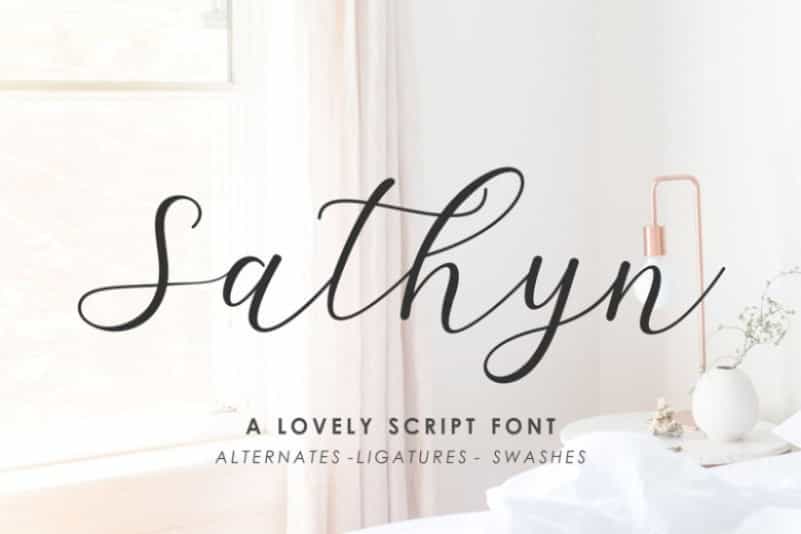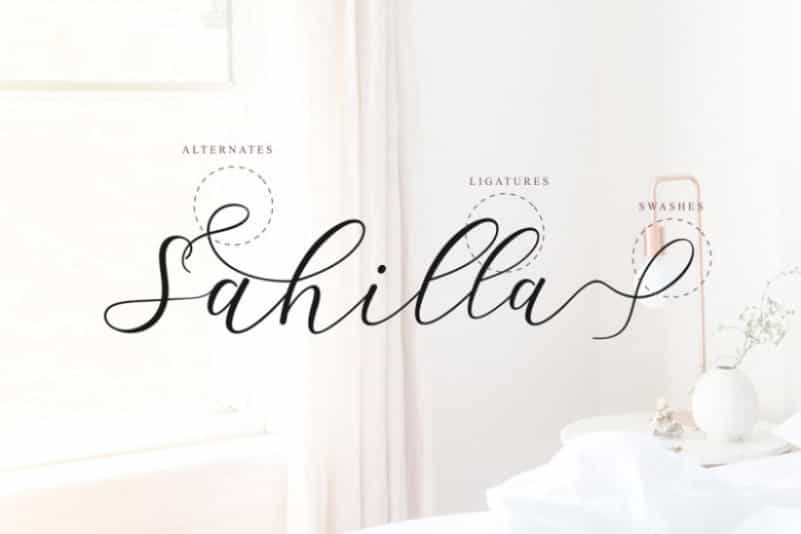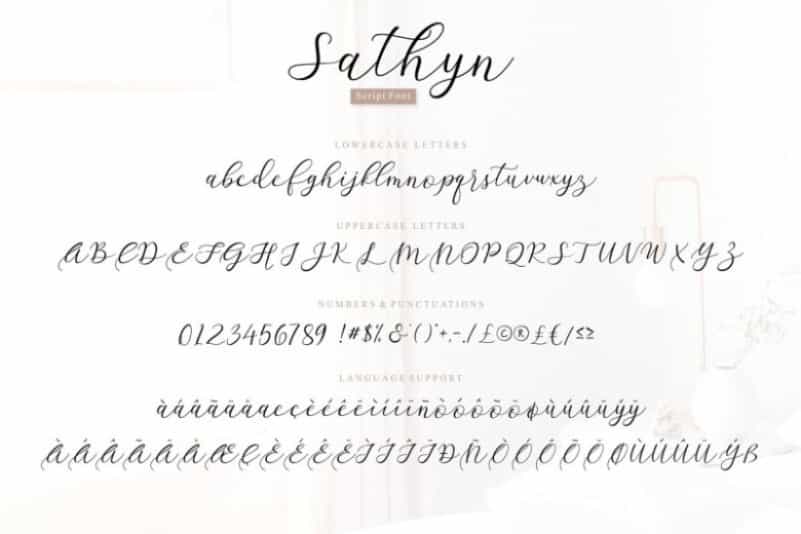
Introducing Sathyn Font. Sathyn Script Font was constructed with the help of OpenType features, and it contains beginning and ending swashes, numbers, punctuation marks, alternates ligatures as well as other languages.